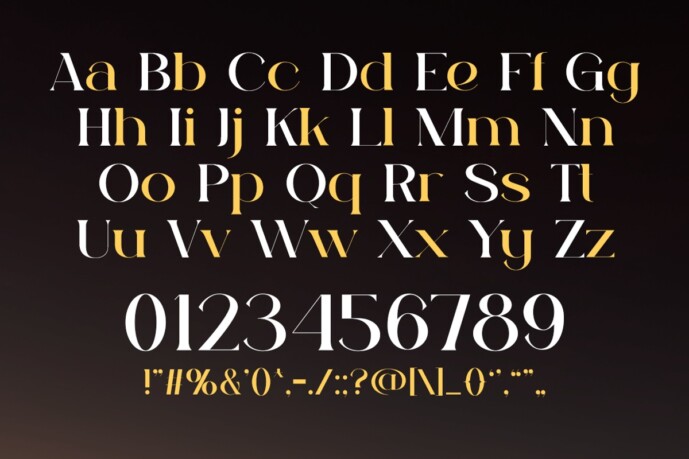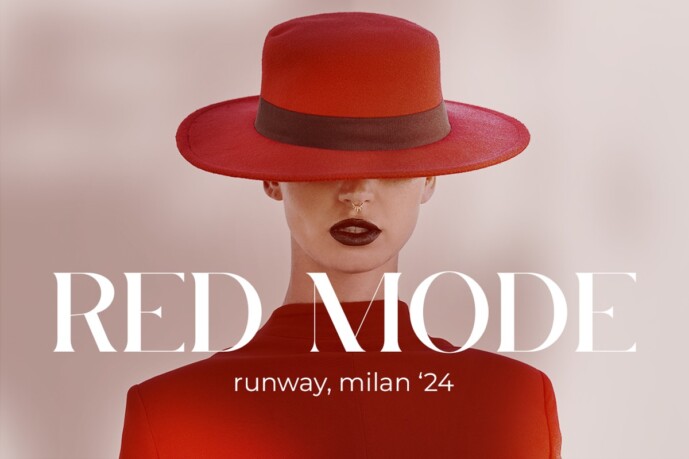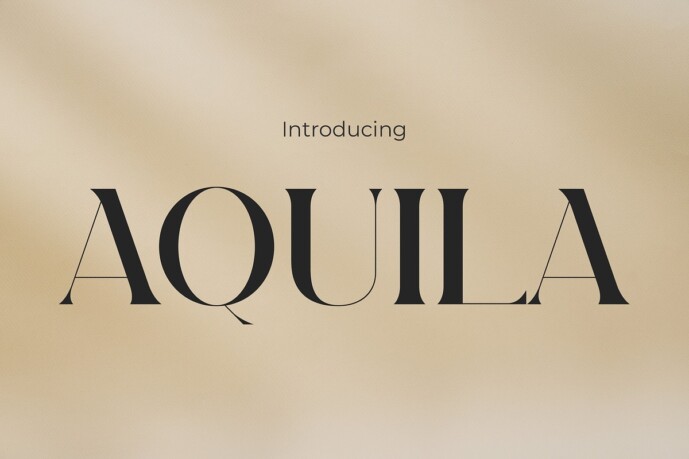
Aquila Font
Aquila Font – Weaving Elegance, Fashion, and Girlish Beauty. Discover beauty in every stroke with our exceptional font, Aquila. With an undeniable touch of grace, Aquila doesn’t just offer typographic design; it presents an enchanting aesthetic experience. This font creates an elegant impression seamlessly blended with the nuances of fashion and girlish charm, making it perfect for projects that demand a special touch. Ideal for logos, quotes, invitations, and other designs seeking timeless beauty. Explore your creativity with Aquila, where each letter becomes a symbol of unforgettable elegance, fashion, and beauty.